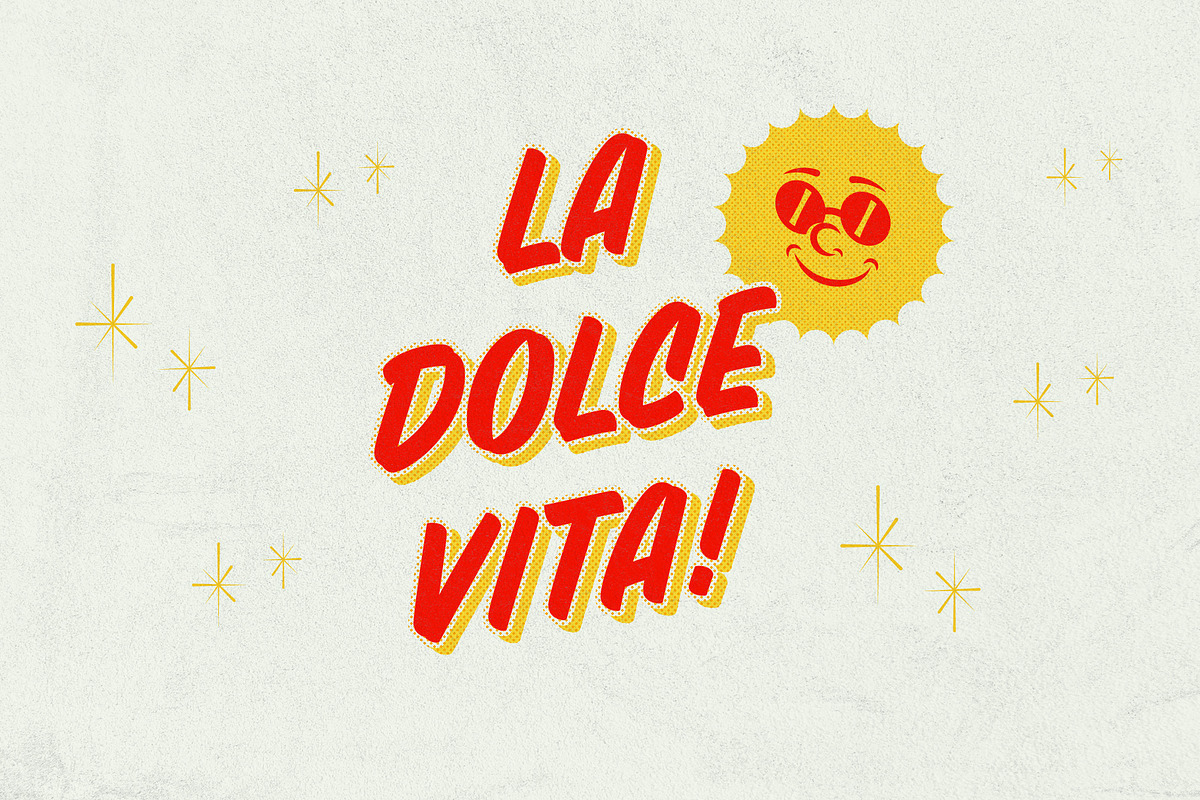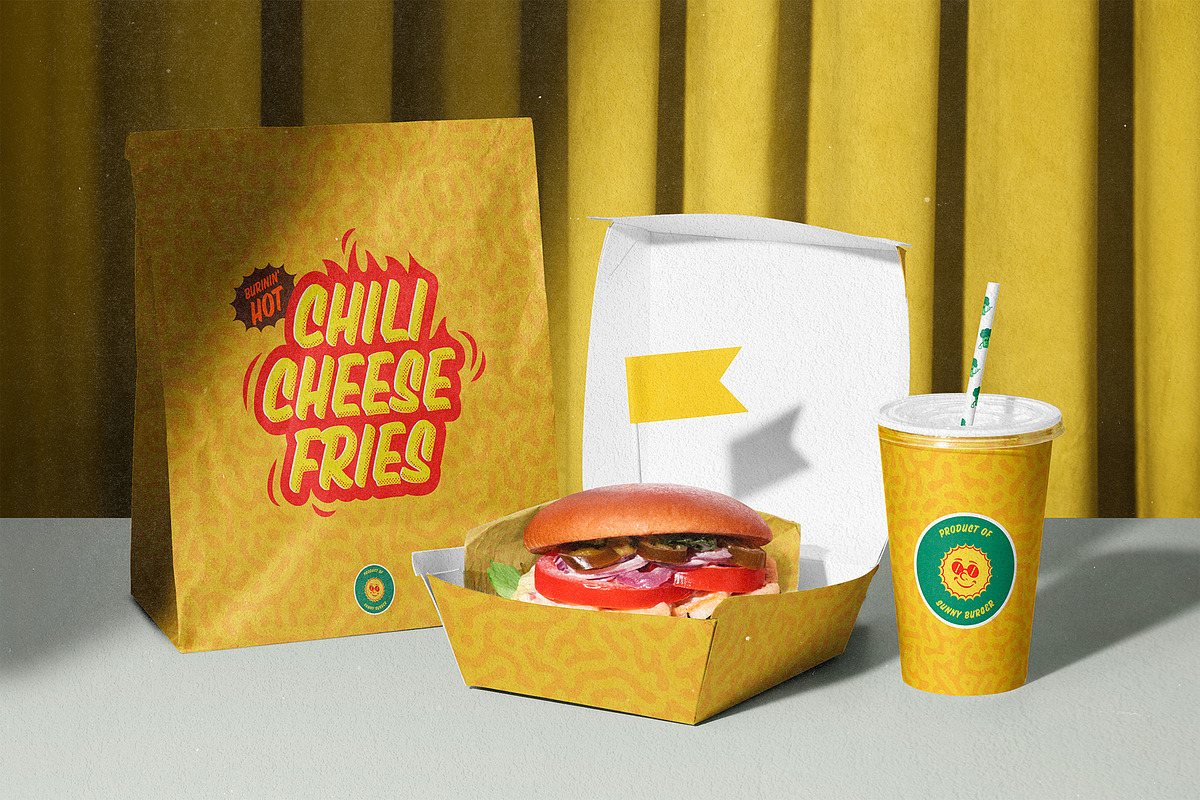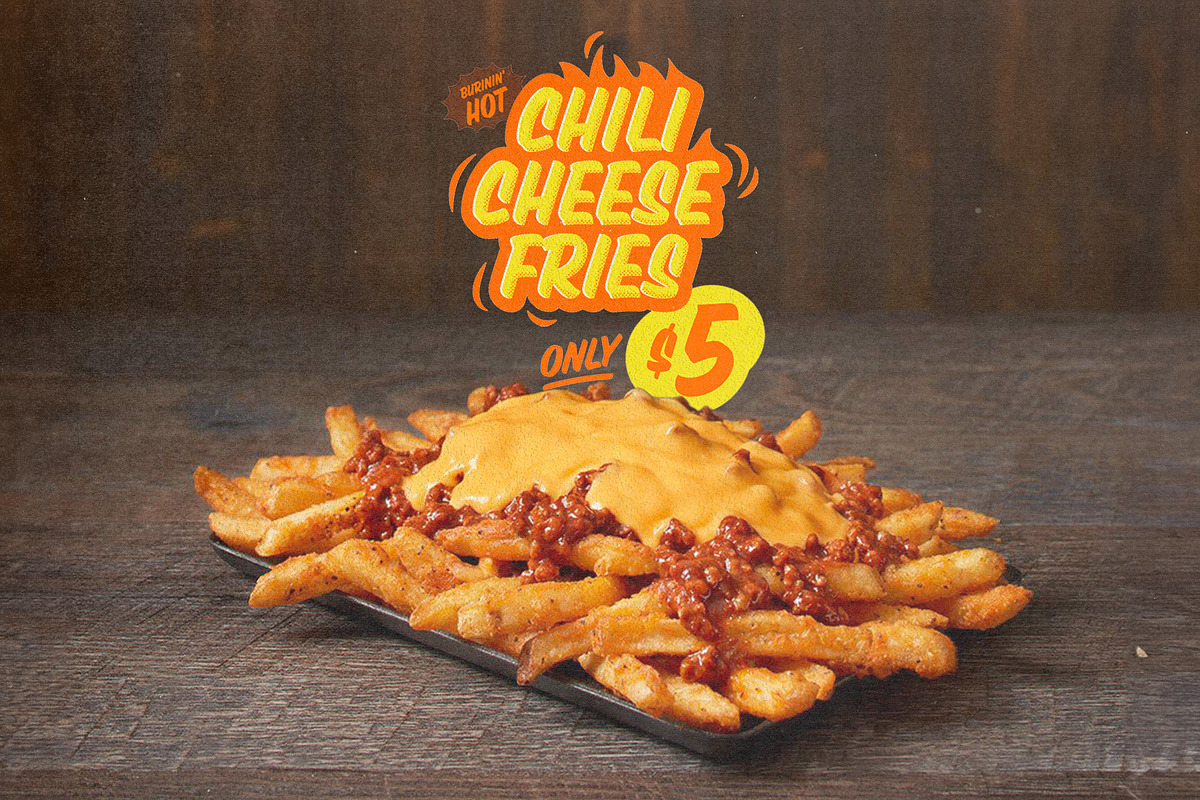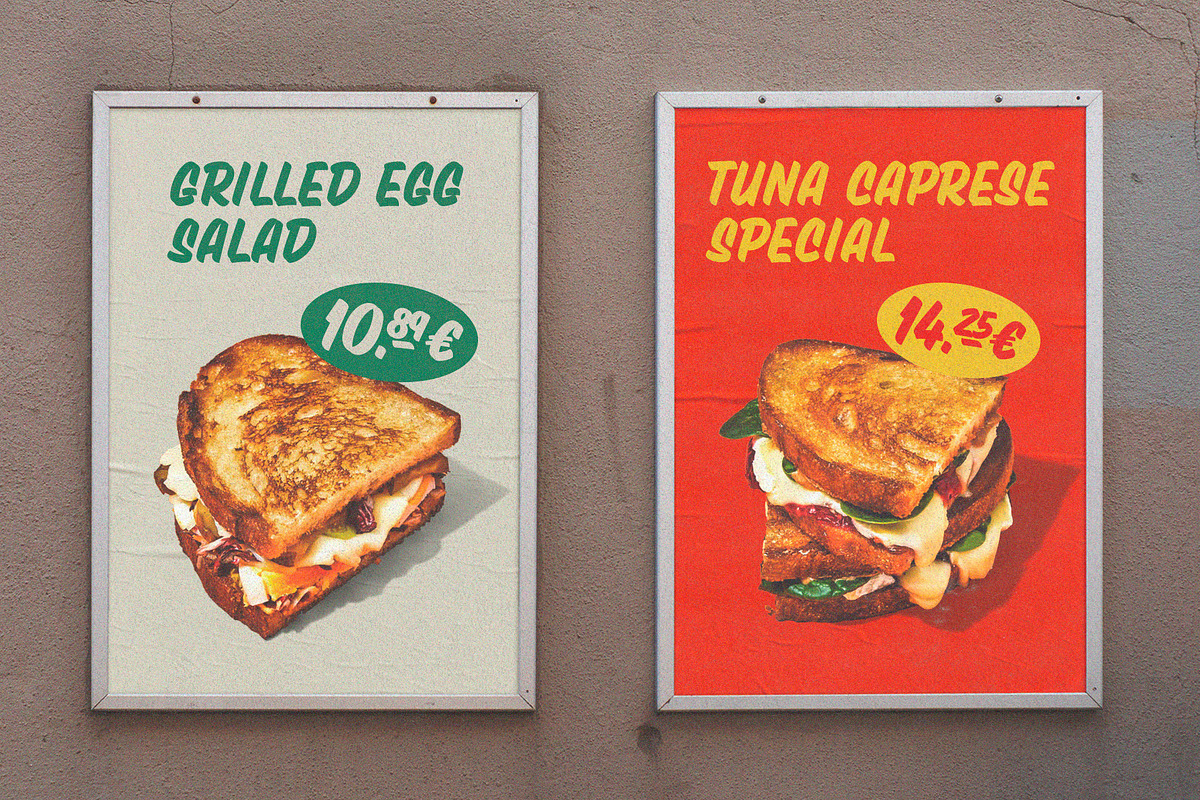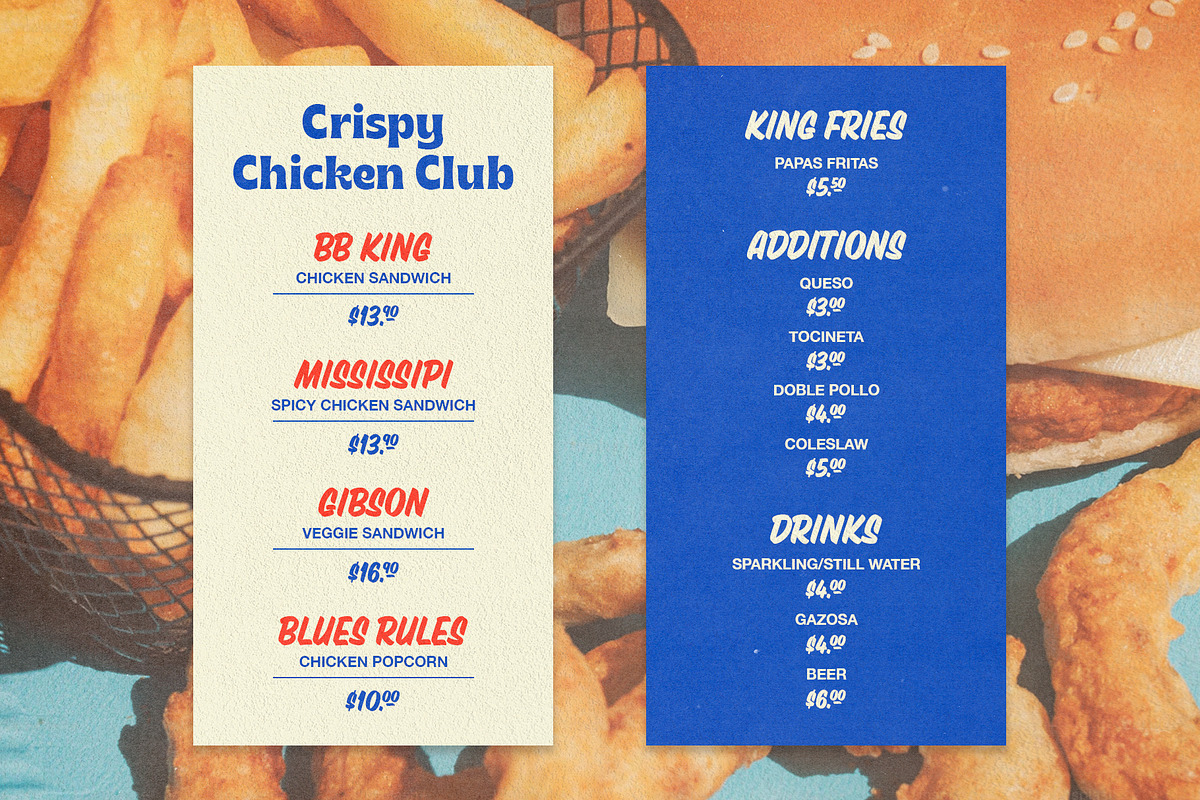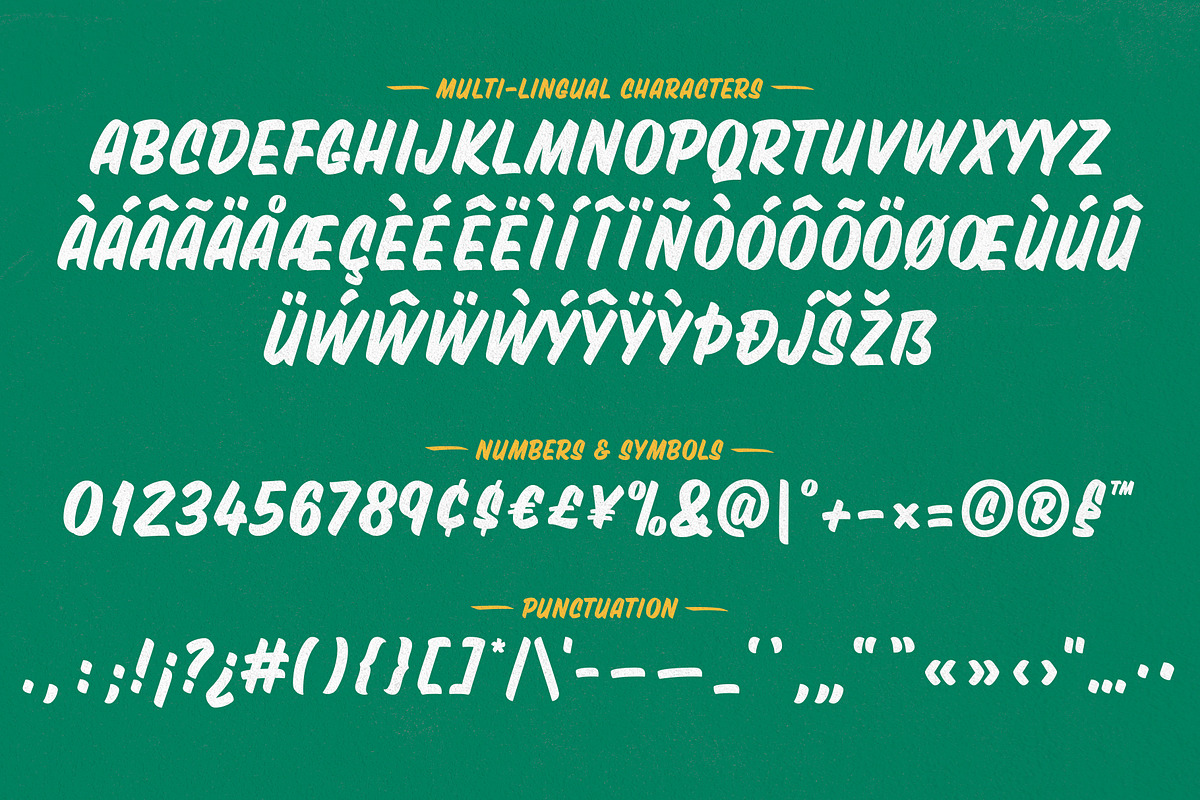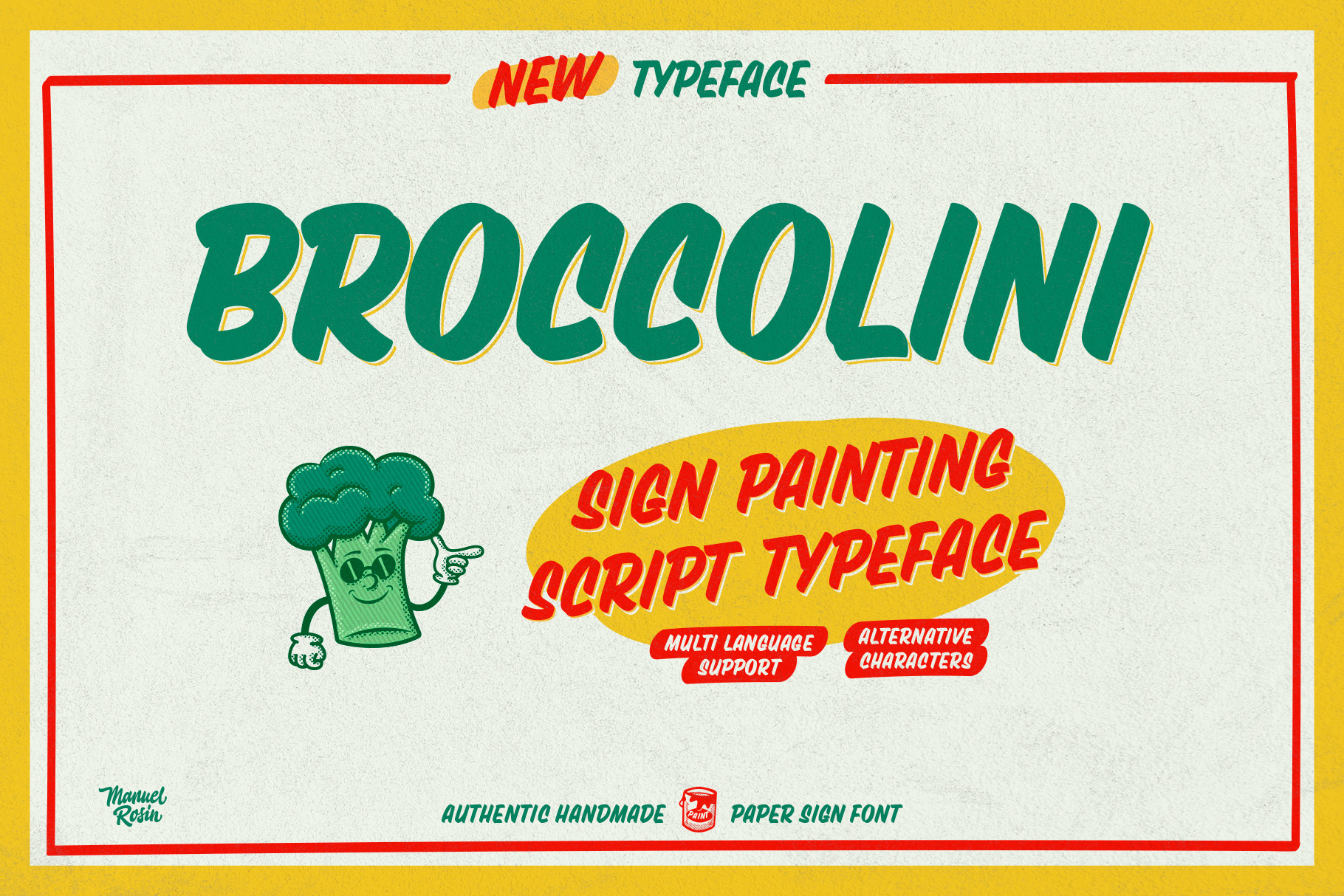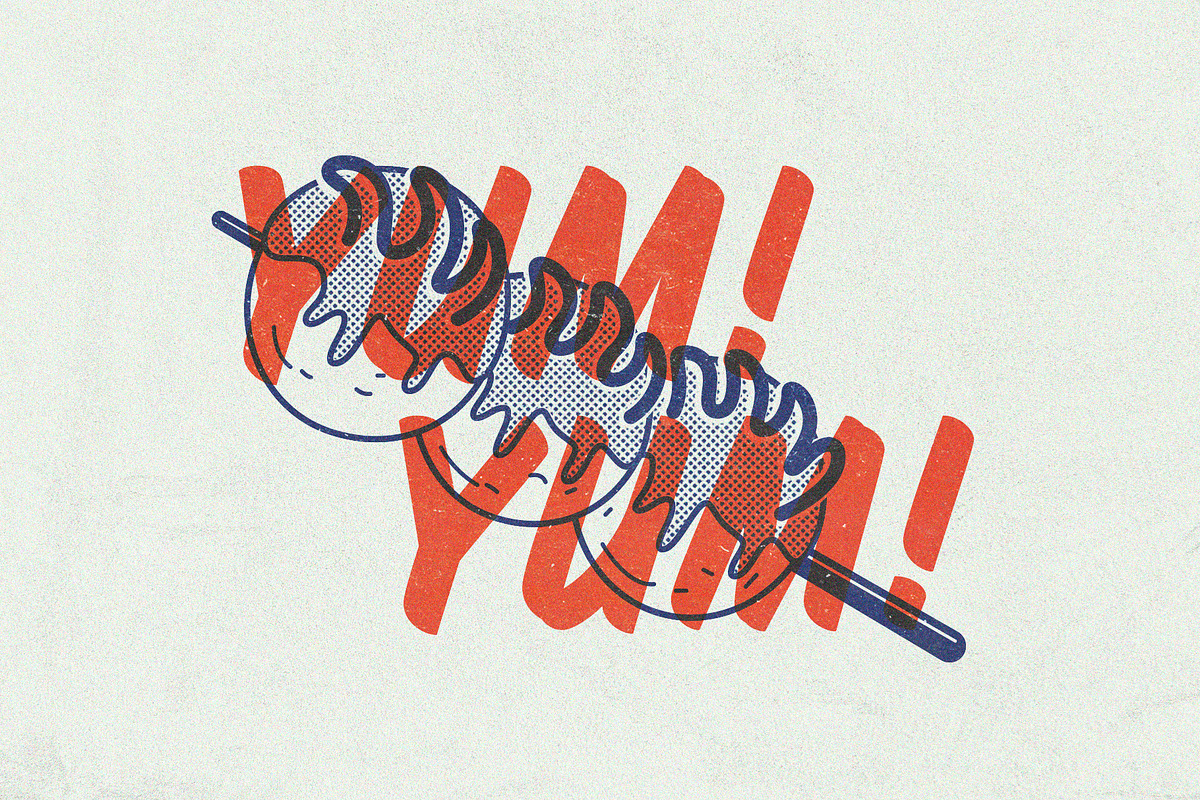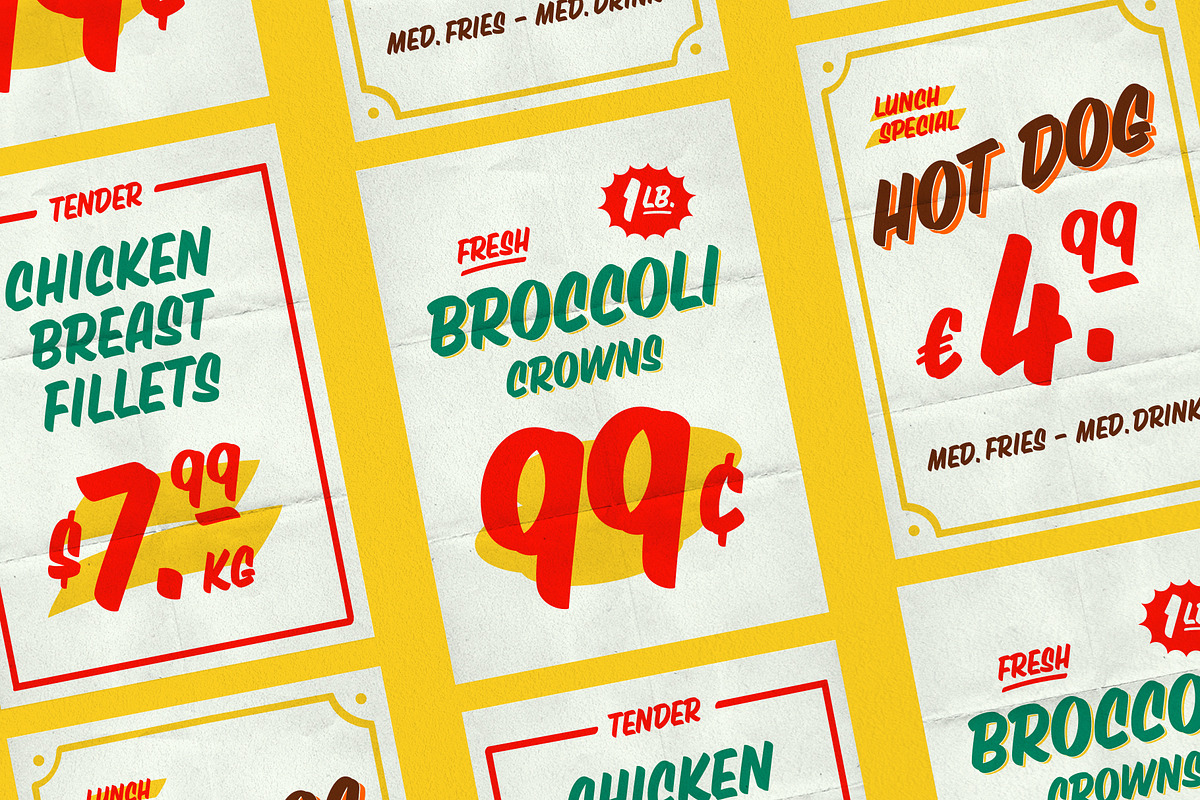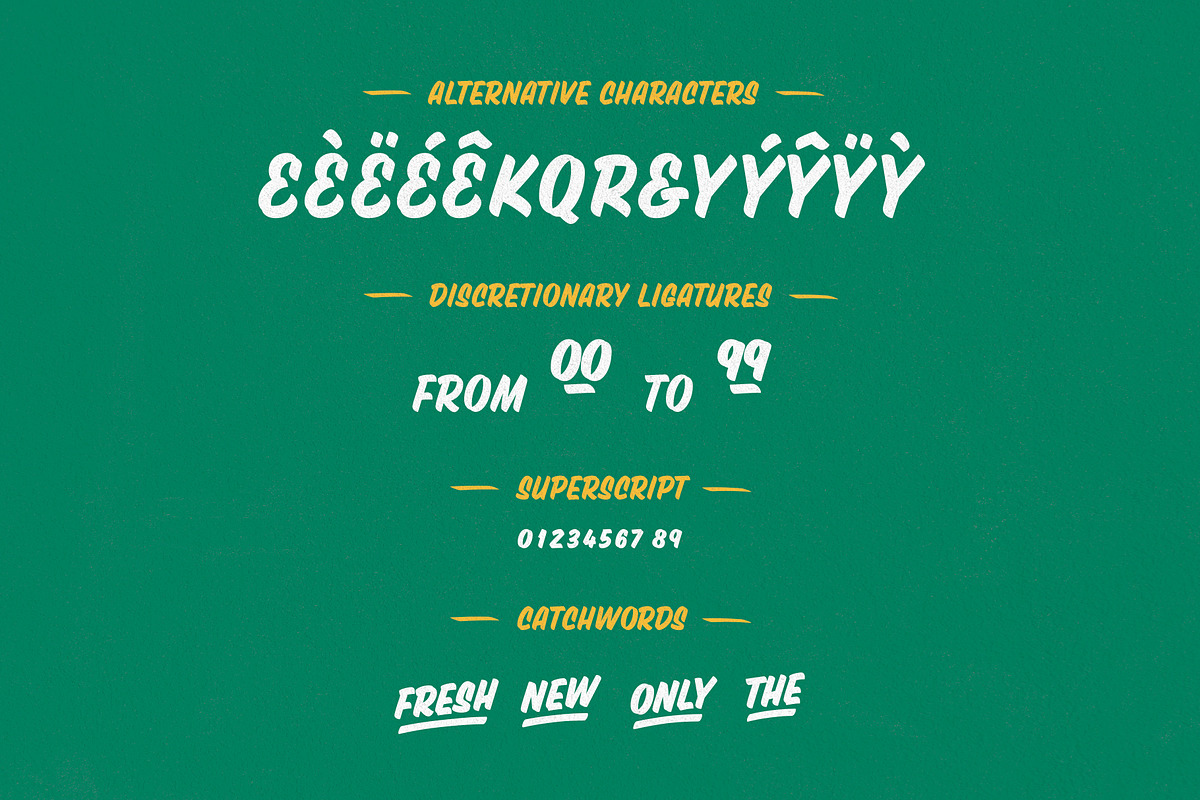
Broccolini - Typeface
Broccolini is a typeface based on sign painting strokes with rounded corners and a handmade flavour. Letterforms are inspired by Casual sign painting style which was used on shops and markets signs. Its bold strokes make it a perfect choice for advertising, packaging and logotypes with style!
Broccolini supports multi-languages (mostly Western Europe) and has some alternative characters and discretionary ligatures. If you need help me or have any request send me a mail at info@manuelrosin.com.
2025 UPDATE - In this huge update I added all possible number combinations for discretionary ligatures, so you can type any kind of prices after the dot. Plus there are new arrow symbols and some catchwords to spice up you graphics!